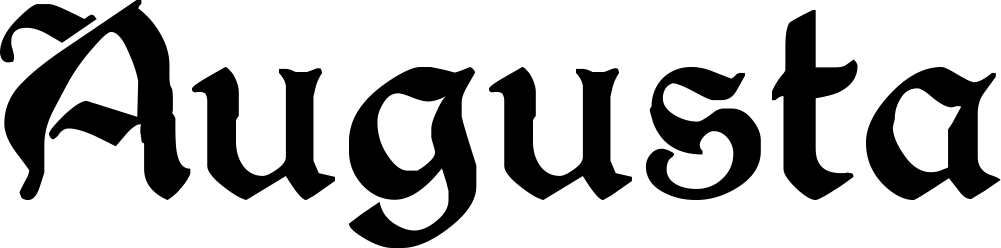
Augusta Font
Designed byDieter Steffmann
Augusta Font can be your best choice for black letter fonts despite its two styles. The sharp and exciting lines that you see in uppercase characters make this epic font a candidate for movie poster design.
If you are interested in designing mysterious and historical themes such as book cover design, it is better to put this font in your download list and use its benefits.